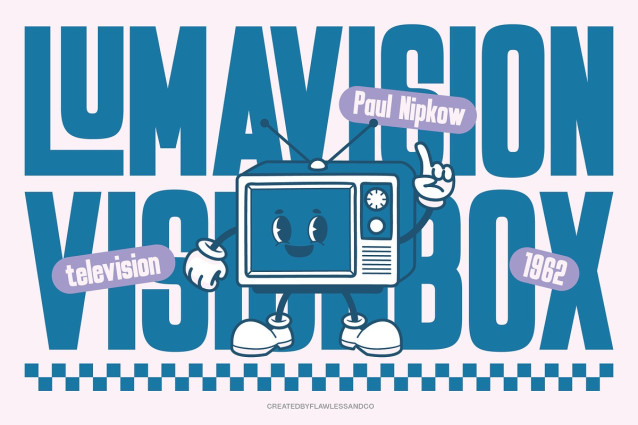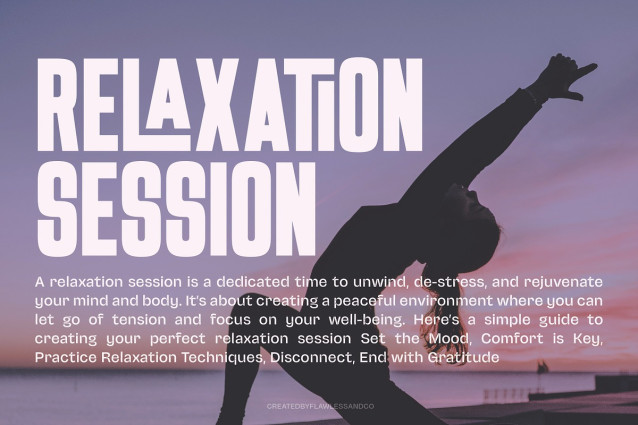
Thoboleh Font
Thoboleh Font — Fun & Quirky Display Font Thoboleh is a bold and playful display font that brings a burst of personality to your design projects. With its chubby curves, quirky letterforms, and fun-loving energy, Thoboleh is perfect for creatives who want to add a touch of humor and boldness to their work. Whether you’re crafting a vibrant poster, a whimsical logo, product packaging, or social media content, Thoboleh is here to make your message stand out in the most delightful way.